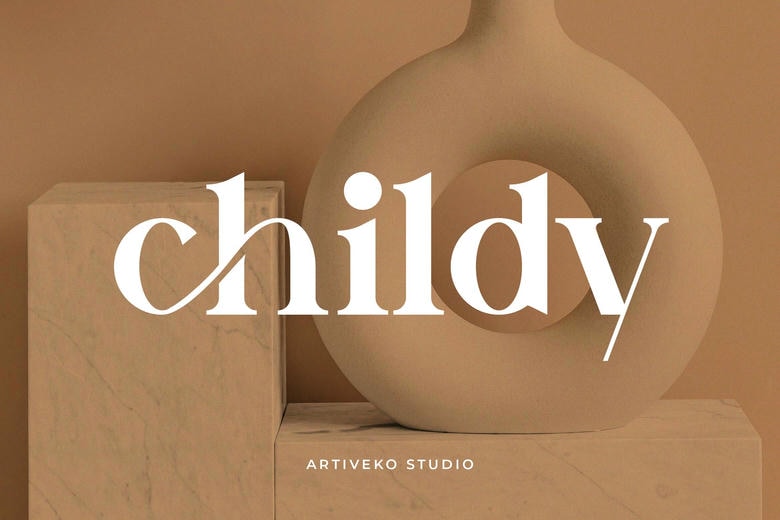
Childy Font
Childy font is a sophisticated serif typeface that is designed to add an air of sophistication and exclusivity to your design projects. High contrast strokes, graceful curves, and well-calculated proportions make Childy a perfect branding partner of luxury brands, high-end packaging, fashion magazines and invitations, and high-end logo design.
Childy Serif Font